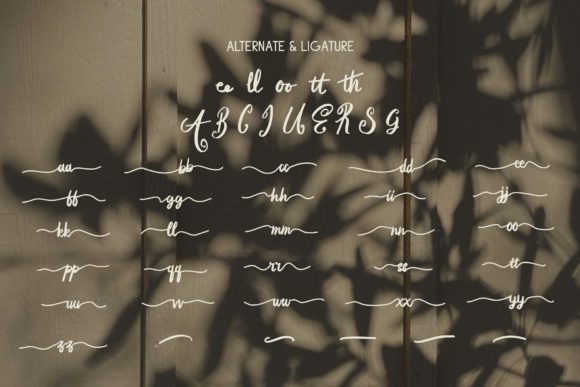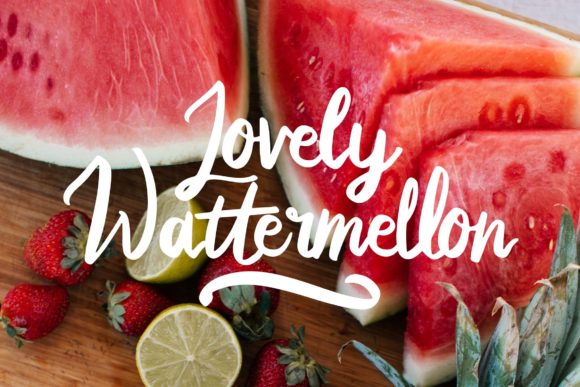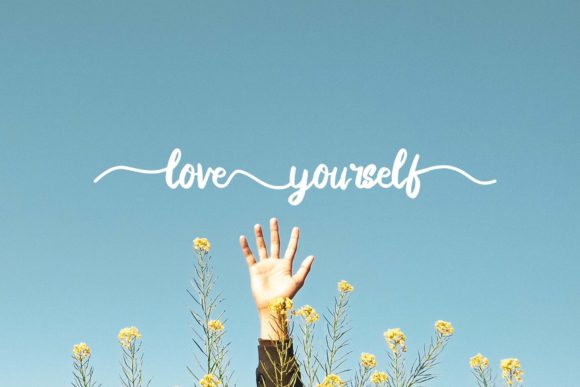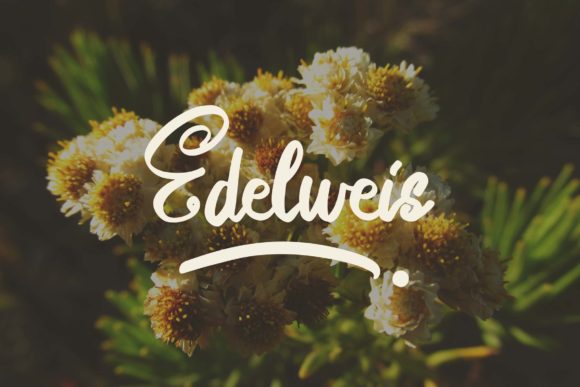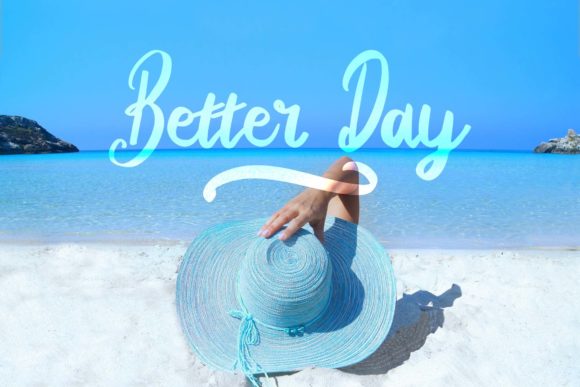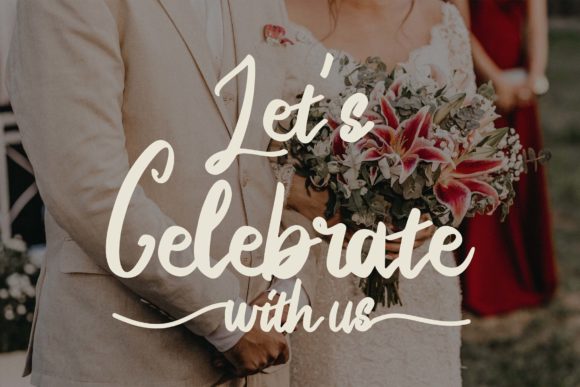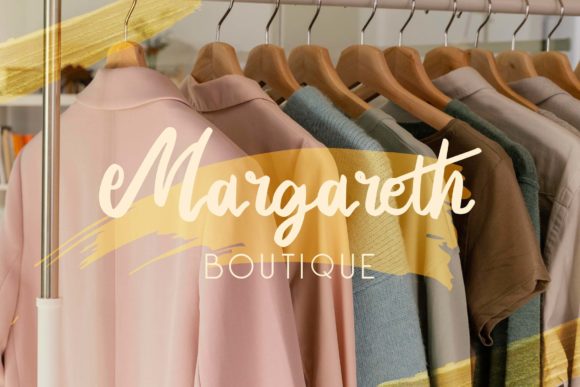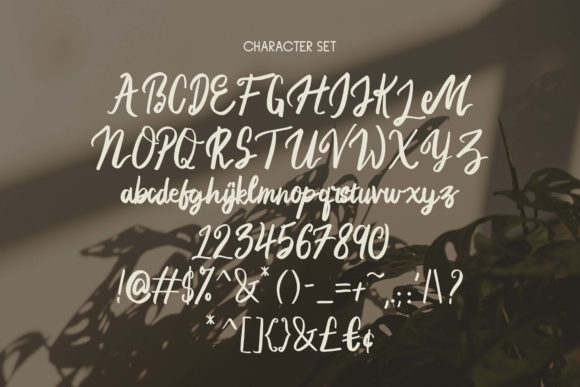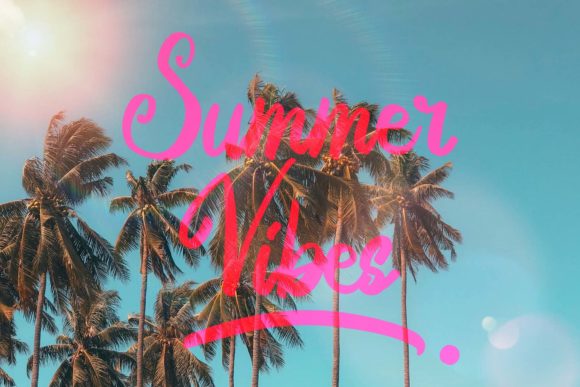
Angela Font
About Angela Font
Angela is a script font that embodies delicacy and fashion, making it an excellent choice for a wide range of creative ventures. With its elegant and flowing letterforms, Angela brings a sense of sophistication to any design project, ensuring that your work stands out and leaves a lasting impression.
When it comes to branding, Angela can serve as a powerful tool to enhance your brand identity. Its graceful and well-crafted characters lend a unique and authentic touch to logos, helping your brand make a memorable statement. Whether your brand has a modern, minimalist vibe or embraces a more ornate and intricate style, Angela’s versatility allows it to adapt and align with your brand’s personality and vision.
The font’s fashion-forward appearance also makes it a great fit for t-shirt printing and apparel design. Use Angela to create trendy and captivating designs that resonate with your target audience. Whether you’re designing graphics for clothing, accessories, or merchandise, Angela’s delicate script adds a touch of elegance and flair to your products, making them truly eye-catching.
Angela’s versatility extends beyond branding and apparel, making it suitable for a variety of creative products. From product packaging to labels, the font’s delicate and fashionable aesthetic enhances the visual appeal of your designs. Its ability to convey a sense of sophistication makes it well-suited for diverse items, whether it’s cosmetics, home goods, artisanal products, or handcrafted items.
Furthermore, Angela’s exceptional adaptability is complemented by its PUA encoding, which allows you to access various glyphs and swashes. This feature enables you to add decorative elements, flourishes, and unique variations to your designs, enabling a customized and distinctive result that aligns perfectly with your creative vision.
In summary, Angela is a delicate and fashionable script font that effortlessly marries elegance with style. Its versatility and PUA encoding make it an ideal choice for branding projects, t-shirt printing, creative products, and more. Let Angela elevate your designs and infuse them with an extraordinary and sophisticated touch, ensuring that they stand out and make a statement in any context.